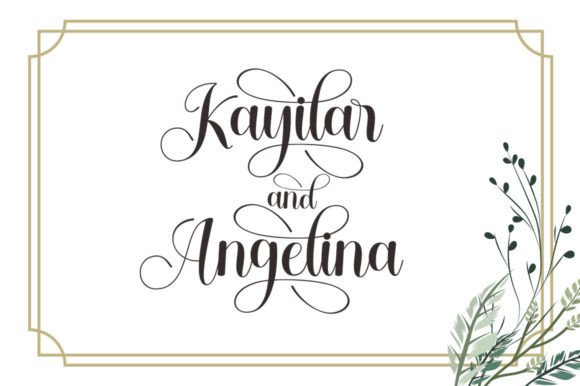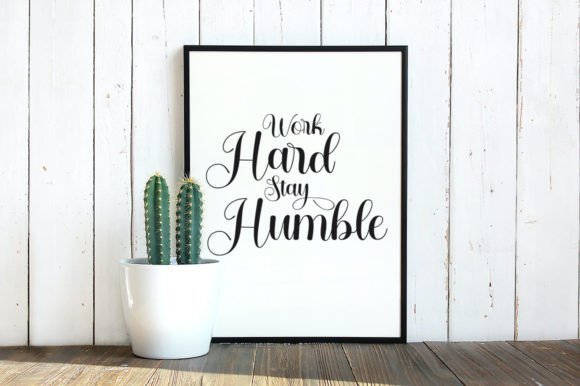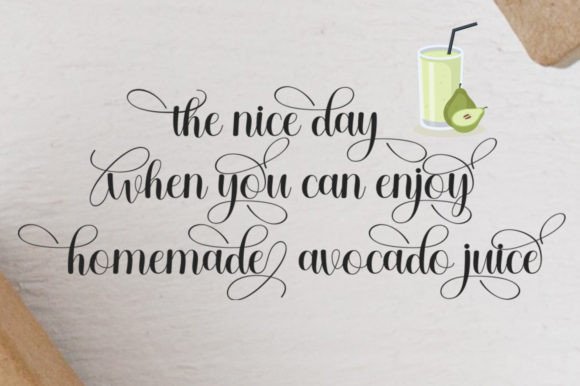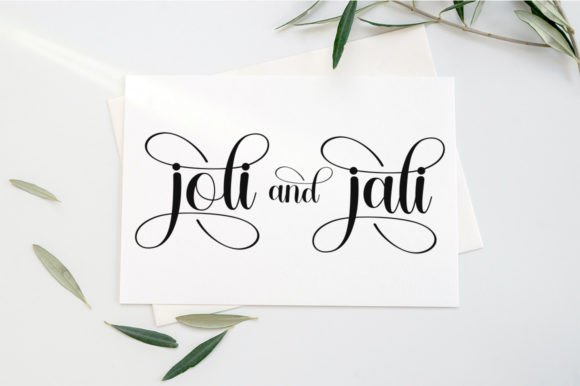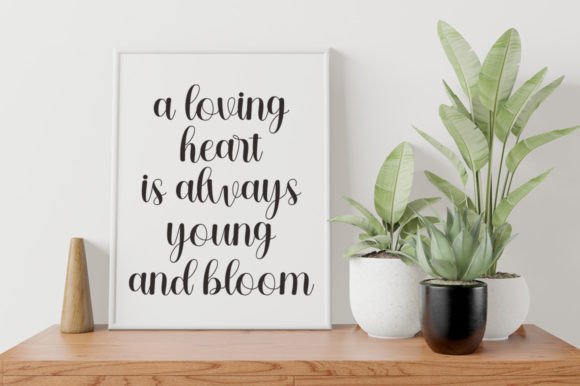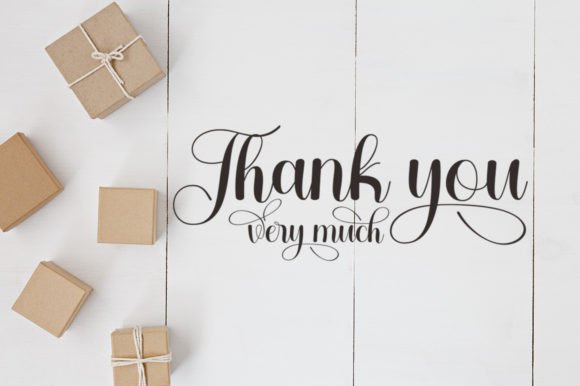
Introduction to Jallia Love Font
You know that feeling when you’re brainstorming ideas for a creative project and the perfect font just slips your mind? It’s like the entire design is waiting for that one missing piece to fall into place. For designers looking to add a touch of elegance to their work, we’re excited to introduce the Jallia Love Font – a stunning calligraphy typeface that’s sure to elevate any design project.
This beautiful font is more than just a pretty face; it’s a valuable resource for designers seeking to create high-quality, visually stunning designs. With its romantic and sweet style, Jallia Love Font is perfect for adding a luxury spark to any project, from wedding invitations to luxury brand marketing materials.
Key Features of Jallia Love Font
- High-quality, elegant script font designed for creative projects and romantic themes.
- Features a beautiful, cursive script with intricate details, ideal for wedding invitations, love letters, and other romantic designs.
- Perfect for use in graphic design, digital art, and other creative projects that require a touch of elegance and sophistication.
Honest Review: Jallia Love Font
What works well: ✨ The font is clean, elegant, and perfect for a creative project that requires a touch of sophistication. The high-quality design ensures that your text will look sharp and clear, even on a transparent background. The Jallia Love Font is ideal for creating visually appealing titles, headings, or even entire paragraphs.
What doesn’t work well: ⚠️ While the font is available for free download, it’s not without its limitations. The Jallia Love Font is a limited character set, meaning it may not be suitable for projects that require a wide range of special characters or languages.
Overall impression: I’m impressed with the Jallia Love Font. It’s a great resource for designers who need a high-quality, free font for their creative projects. Just be aware of its limitations, and you’ll be all set for a beautiful and professional-looking design.
- Perfect for creative projects that require a touch of sophistication
- High-quality design ensures clear and sharp text
- Limited character set, may not be suitable for projects with special characters or languages
Tips for Getting the Most Out of Jallia Love Font
To get the most out of Jallia Love Font, use it on a transparent background to create a unique and eye-catching design. You can also experiment with different font sizes and colors to add depth and interest to your design.
The Jallia Love Font is perfect for any creative project, including wedding invitations, birthday cards, and social media graphics. Its high-quality design and transparent background make it a versatile and effective design resource.